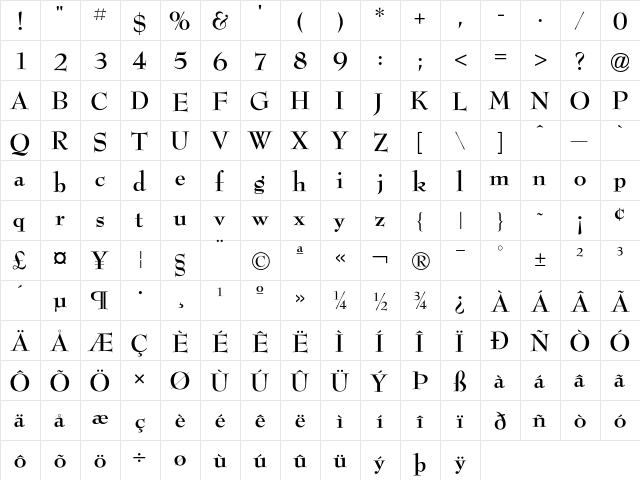
BernhardModernICG Bold
Design Context for BernhardModernICG Typeface
BernhardModernICG is a composed and adaptable typeface that performs quietly and consistently across a wide range of design contexts. The heavy weight commands attention and anchors typographic hierarchies.